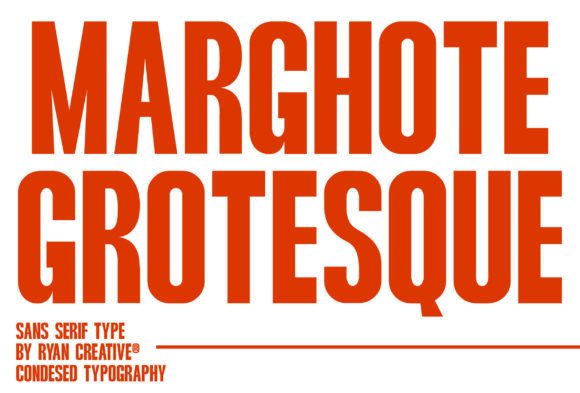
Introducing Marghote Font: The Epitome of Style and Clarity in the Digital Age
In a world of visual cacophony, where fonts vie for attention like clamoring voices in a crowded marketplace, Marghote Font stands out as a beacon of clarity and sophistication. This sans serif font, meticulously crafted by ryan creative, embodies the essence of minimalism and readability, making it the perfect choice for businesses seeking to communicate with impact.
Marghhote's simple design and grotesque style exude an air of understated elegance that commands attention without overpowering the content it adorns. Its bold and condensed structure lends it a minimalist aesthetic that enhances legibility, ensuring your message cuts through the clutter and reaches your audience with crystal clarity.
Whether you're crafting a fashion magazine, designing a captivating poster, or creating eye-catching digital content, Marghote Font rises to the occasion, seamlessly blending form and function. Its versatility extends to typography, where it lends a distinctive charm to headlines, body text, and logos, elevating your designs to new heights of sophistication.
With Marghote Font as your creative ally, you'll discover endless possibilities to captivate and engage your audience. It effortlessly adapts to a myriad of design styles, from modern and contemporary to classic and timeless, making it the perfect choice for businesses seeking to establish a strong and lasting brand identity.
Don't settle for ordinary fonts that blend into the background. Embrace the power of Marghote Font and watch your words leap off the page, grabbing attention and leaving a lasting impression. Experience the difference that clarity and style can make in your designs and elevate your business to new levels of success.